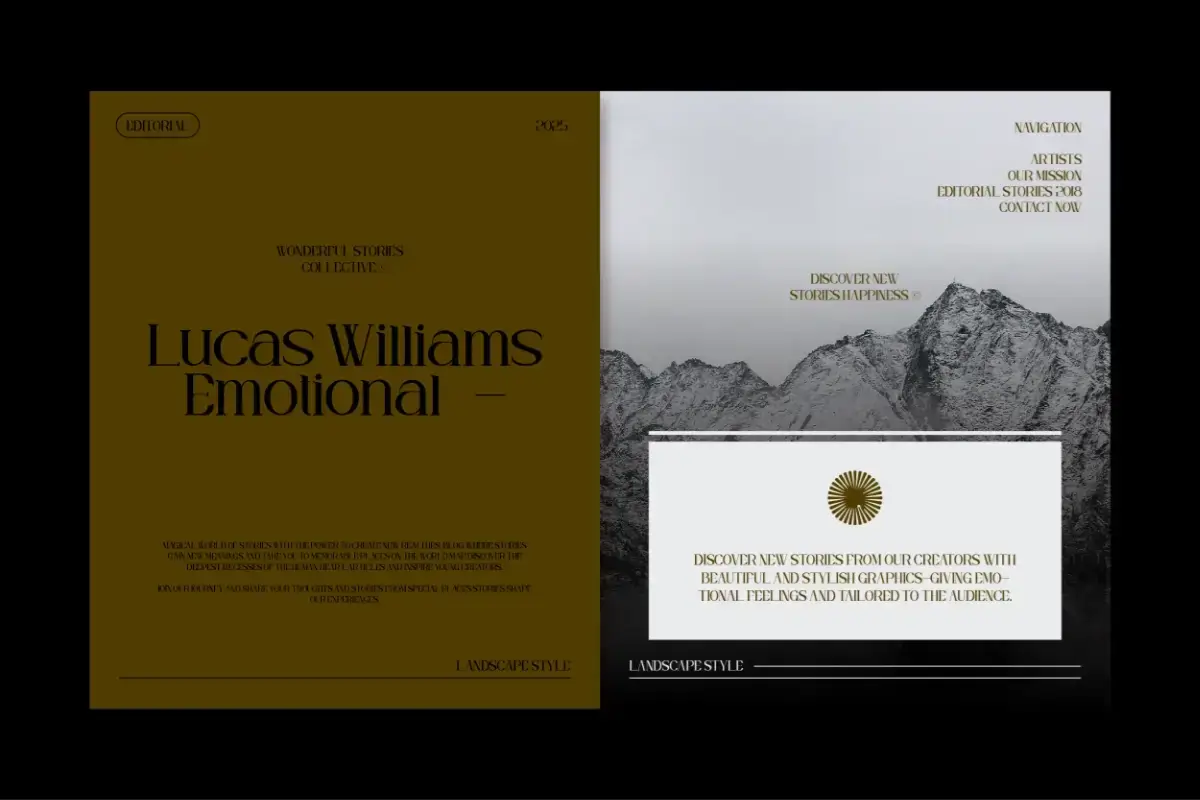
Bagin Font: Modern Editorial Serif
Bagin Font is a contemporary display serif created for designers who want their typography to feel elegant, expressive, and instantly recognizable. Its dramatic stroke contrast, sculpted curves, refined proportions, and distinctive details give logos and headlines a polished editorial presence.
Blending classic serif influences with a modern fashion-inspired aesthetic, Bagin works beautifully as the centerpiece of a visual identity. Its stylish letterforms make short words, brand names, titles, and promotional messages feel carefully art-directed. Alternate characters and ligatures provide additional options for creating personalized wordmarks and memorable typographic compositions.
Bagin Font Best Suited For :
- Luxury and premium logos
- Fashion brand identities
- Editorial headlines
- Magazine covers and layouts
- Beauty and skincare packaging
- Perfume and cosmetic labels
- Wine, café, and restaurant branding
- Architecture and interior design portfolios
- Furniture catalogs
- Product packaging
- Advertising campaigns
- Posters and large format displays
- Book and album covers
- Wedding invitations
- Social media content
- Website banners and hero sections
- Creative agency presentations
- Personal portfolio designs
- Boutique shop branding
- Elegant merchandise
Bagin Font is an excellent choice for luxury logos, fashion and beauty branding, magazine covers, editorial headlines, perfume and cosmetic packaging, product labels, posters, advertising campaigns, wedding stationery, restaurant identities, social media graphics, website banners, books, and album covers.
For a clean and premium result, pair Bagin with a minimalist sans serif for paragraphs and supporting information. Use generous spacing for a refined appearance, or choose oversized lettering to create a bold editorial statement.